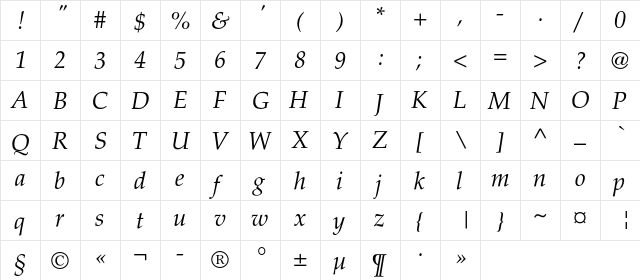
AGPalatialC Italic
Design Context for AGPalatialC Typeface
AGPalatialC offers clean, dependable letterforms without strong stylistic allegiance, making it a practical choice for designers who need flexibility. The dynamic lean of this cut emphasises speed and emphasis in any layout.
Pro Tip: Try AGPalatialC for annotation and caption copy alongside an upright companion — the contrast in angle creates a dynamic but ordered typographic system.